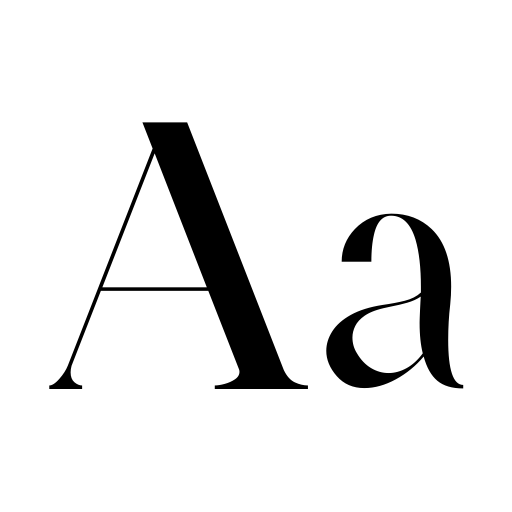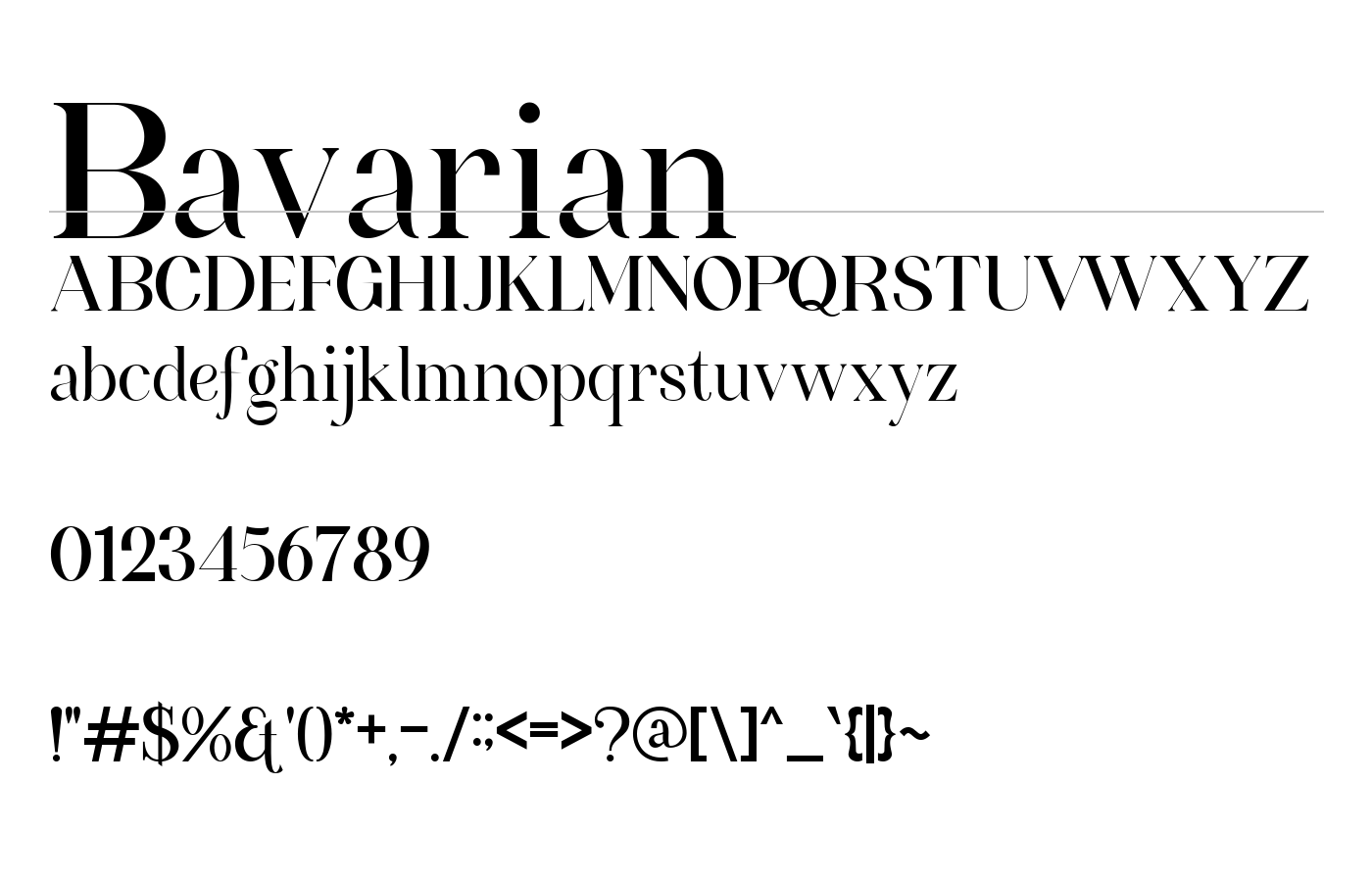
Bavarian is an elegant serif typeface with a high contrast between thick and thin strokes, giving it a refined and sophisticated appearance. Its tall, slender letterforms and delicate serifs evoke a sense of luxury and classic style, making it perfect for fashion branding, editorial headlines, and upscale packaging. This font’s distinctive character and readability at larger sizes lend it well to designs that demand a stylish, timeless touch.
Bavarian Font
About Bavarian Font
| Font family | Bavarian Font |
| Designer | Ramdani |